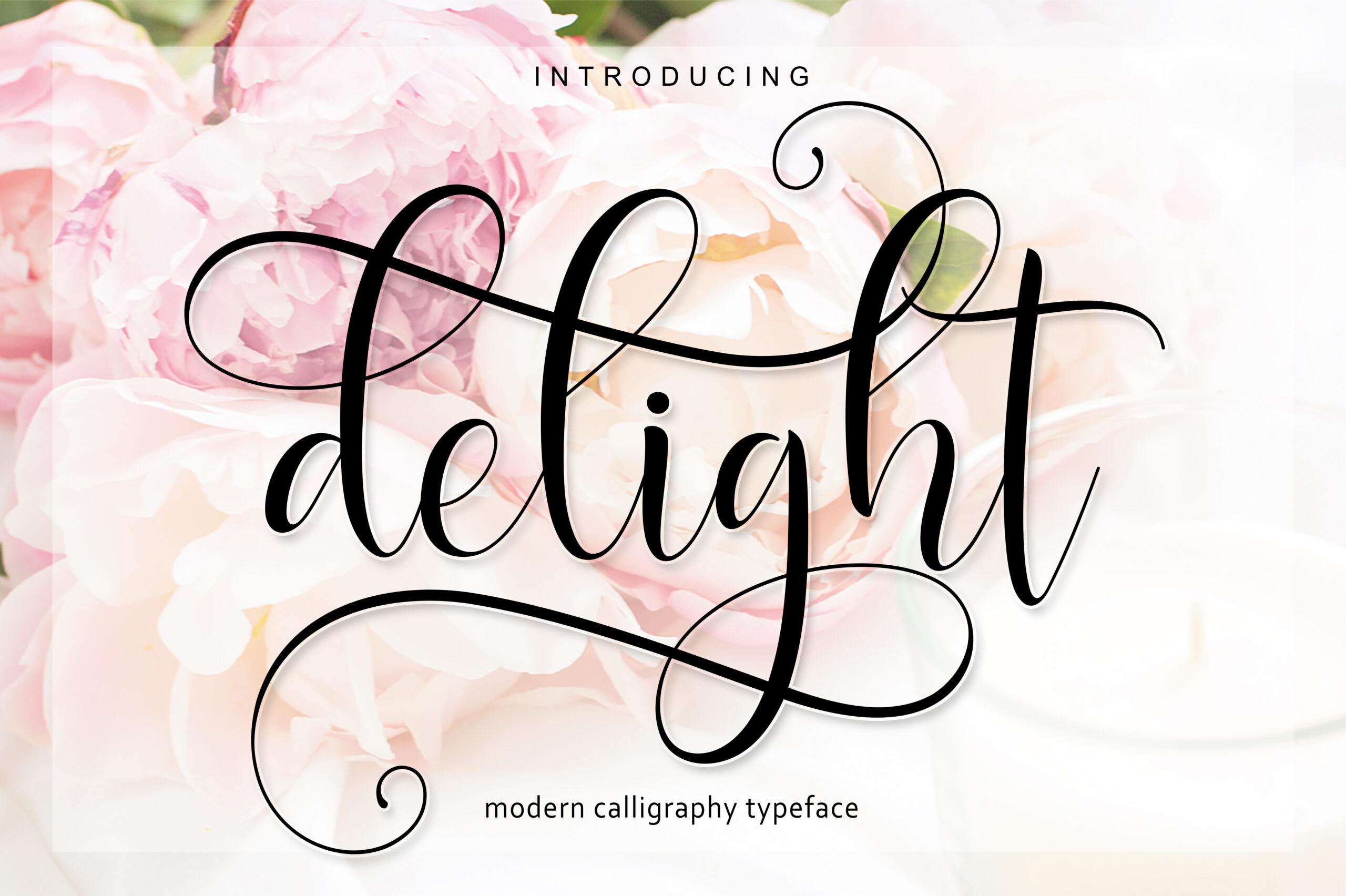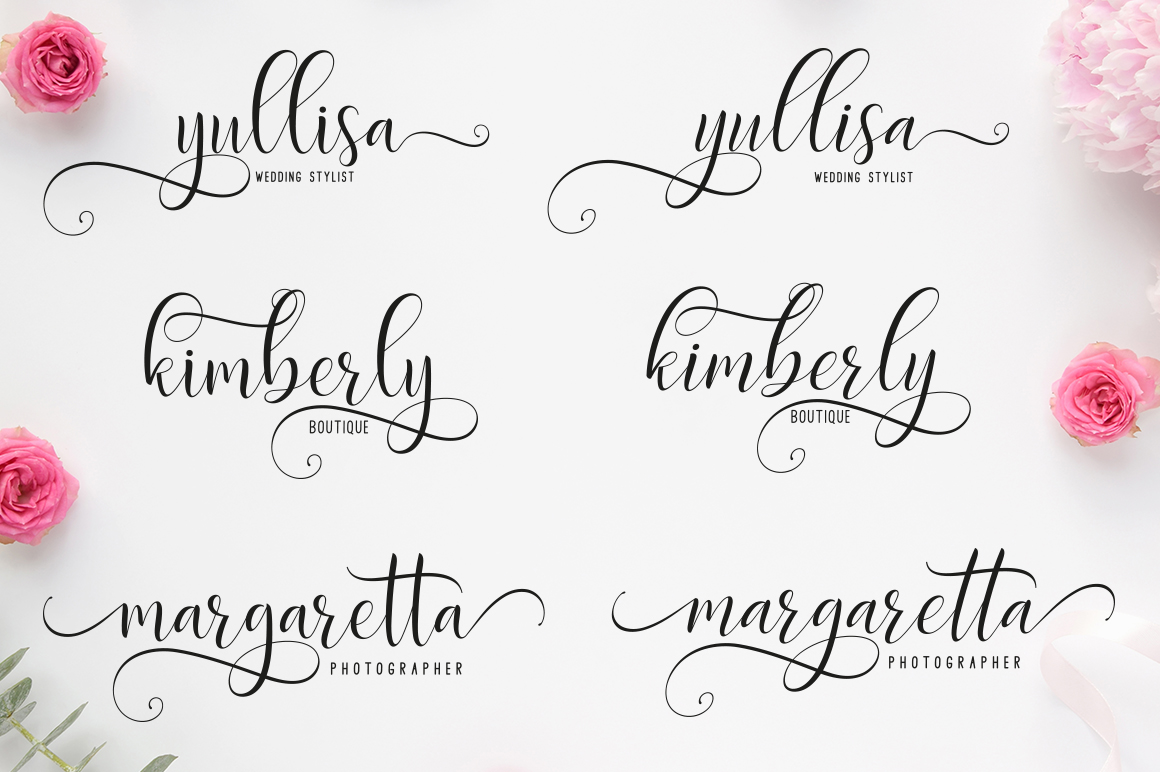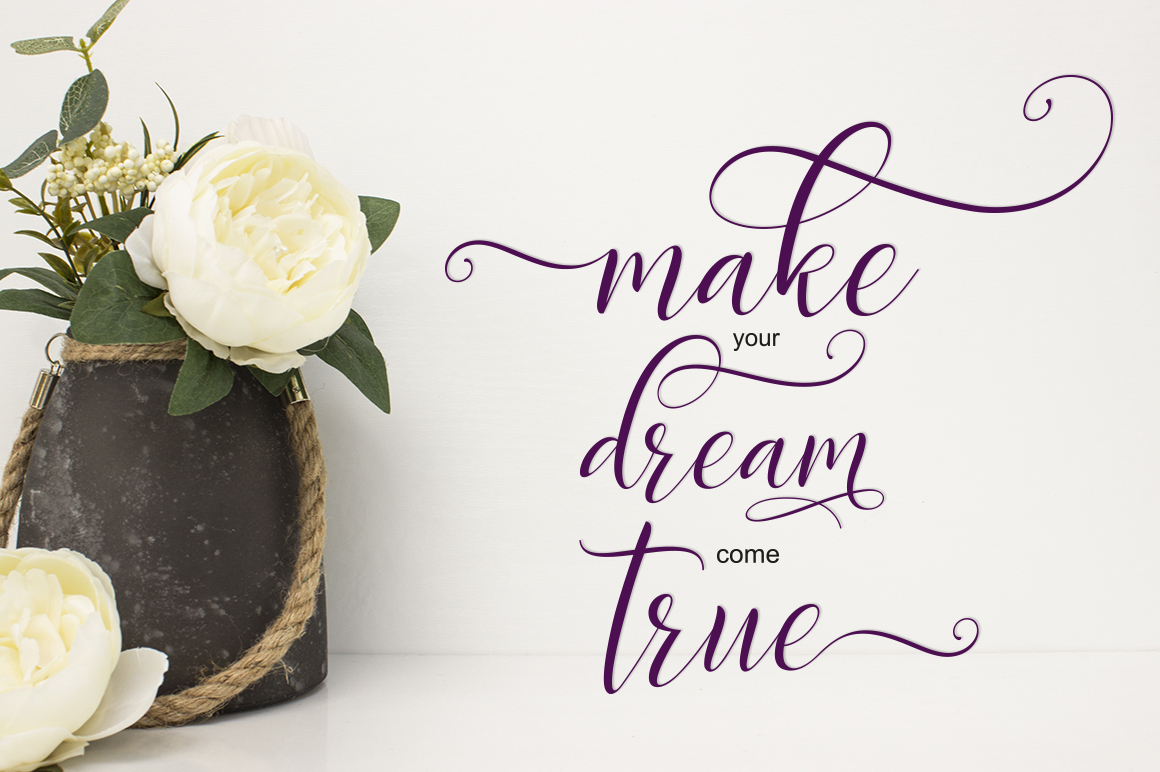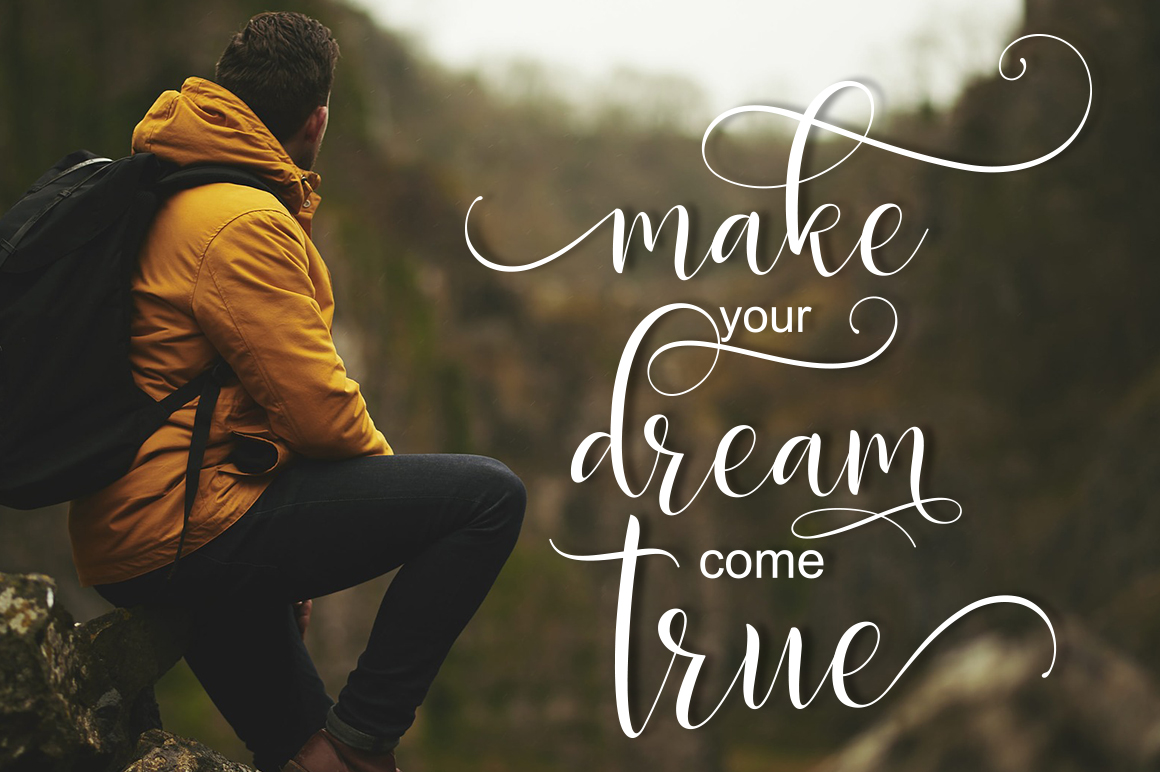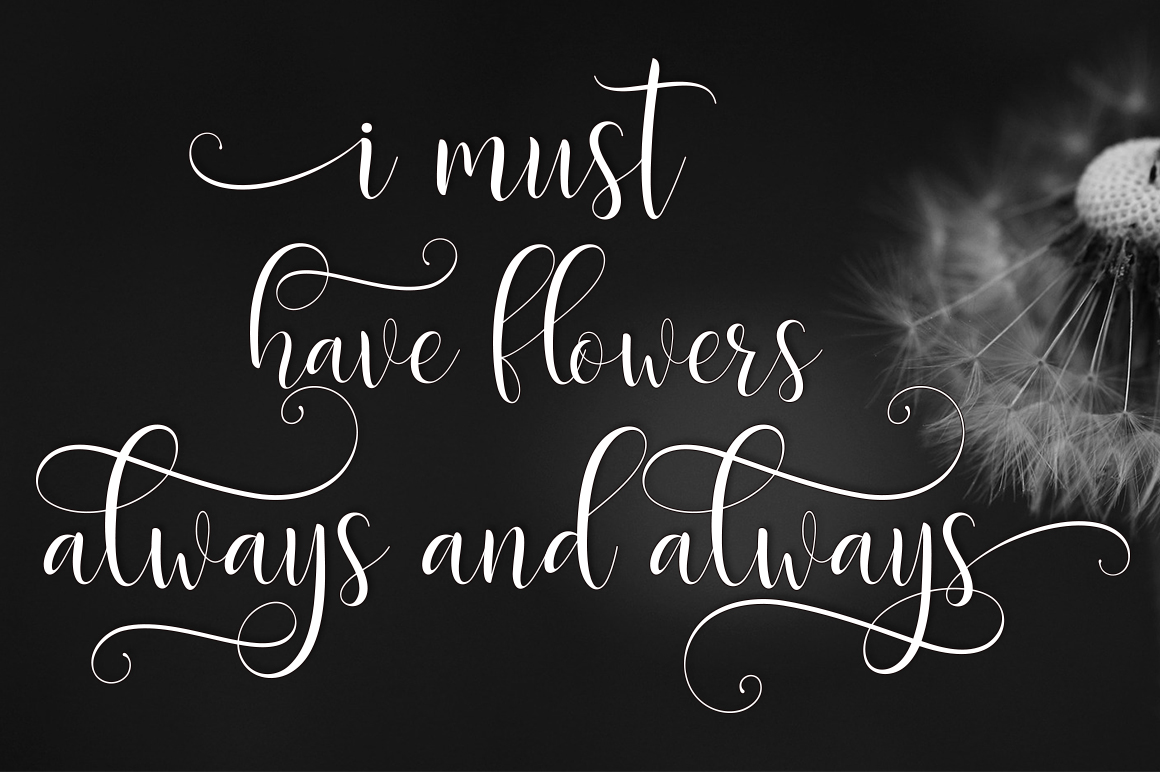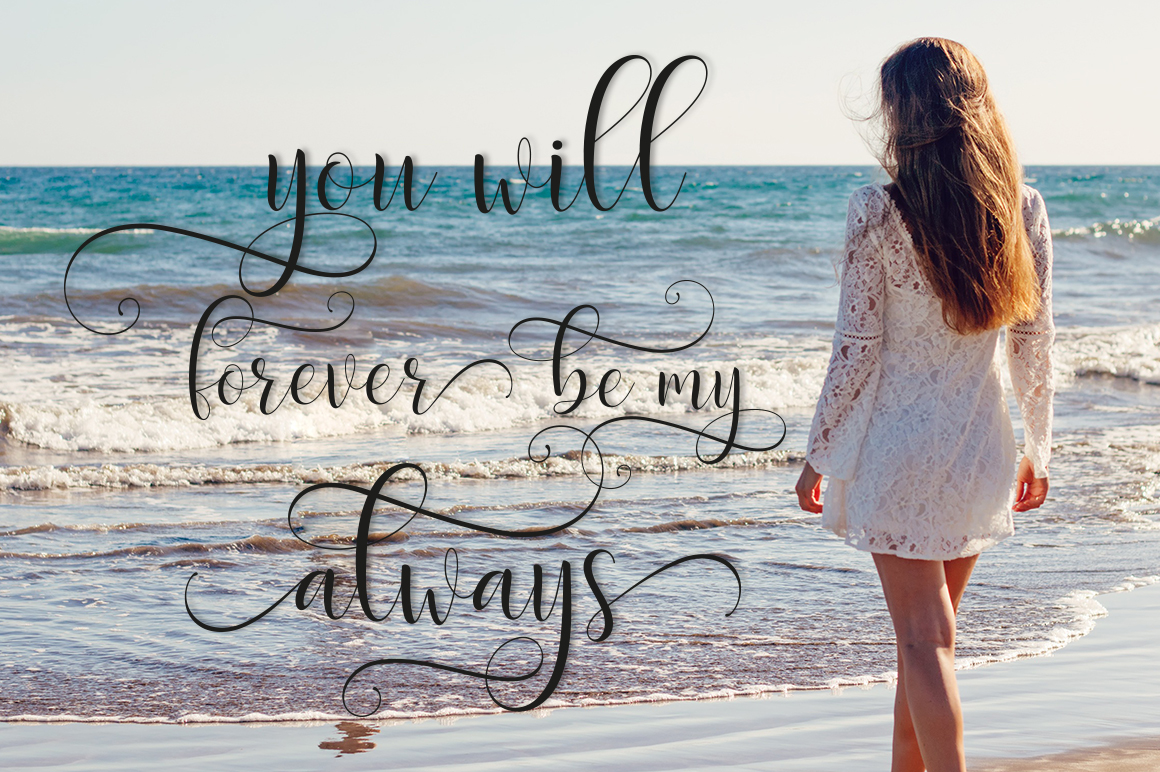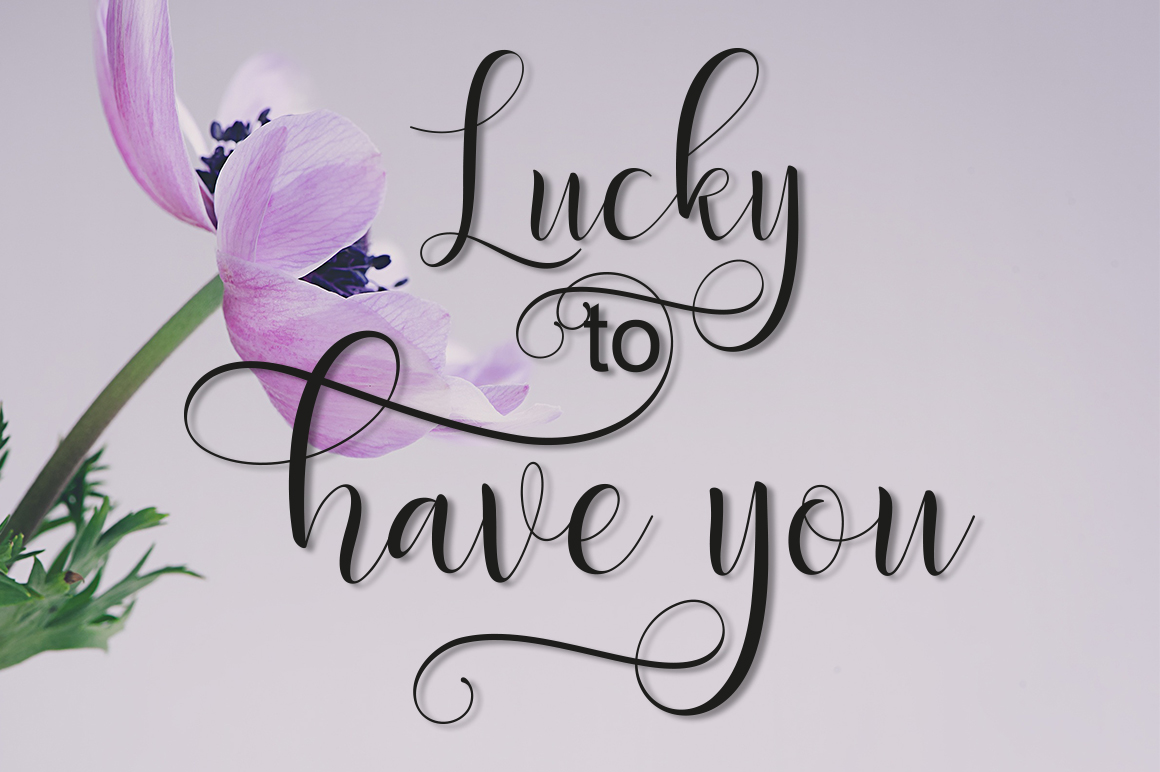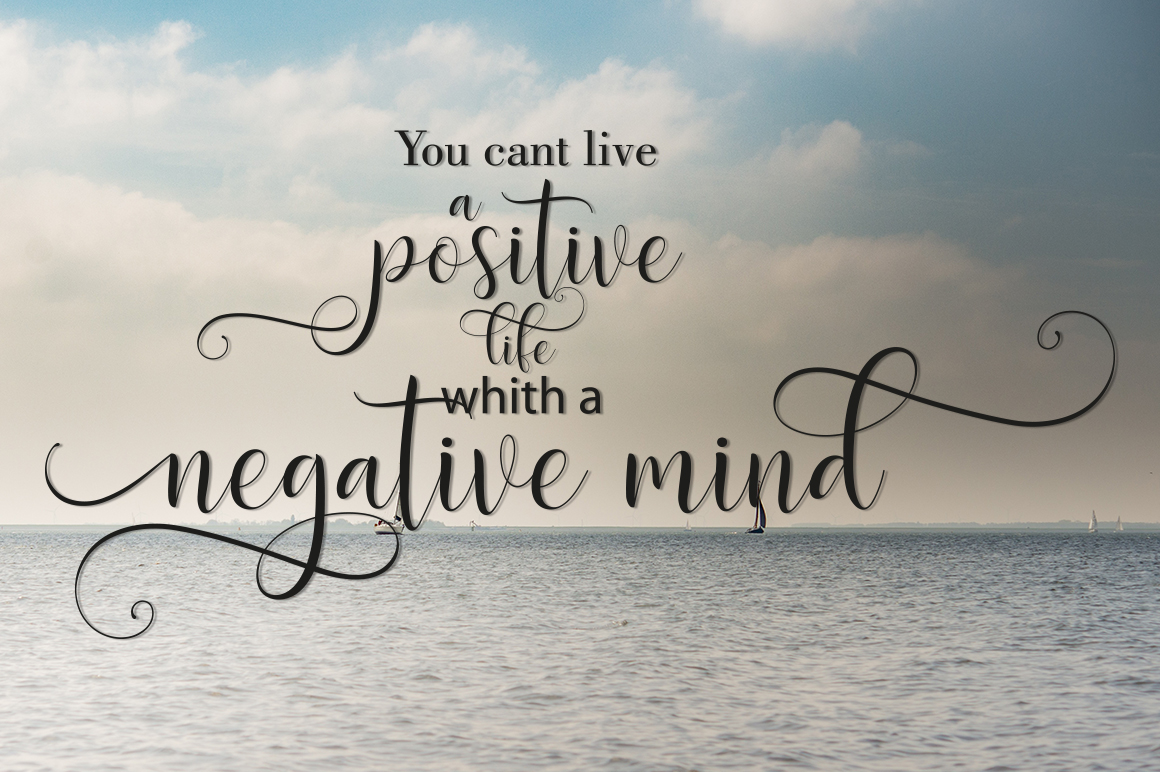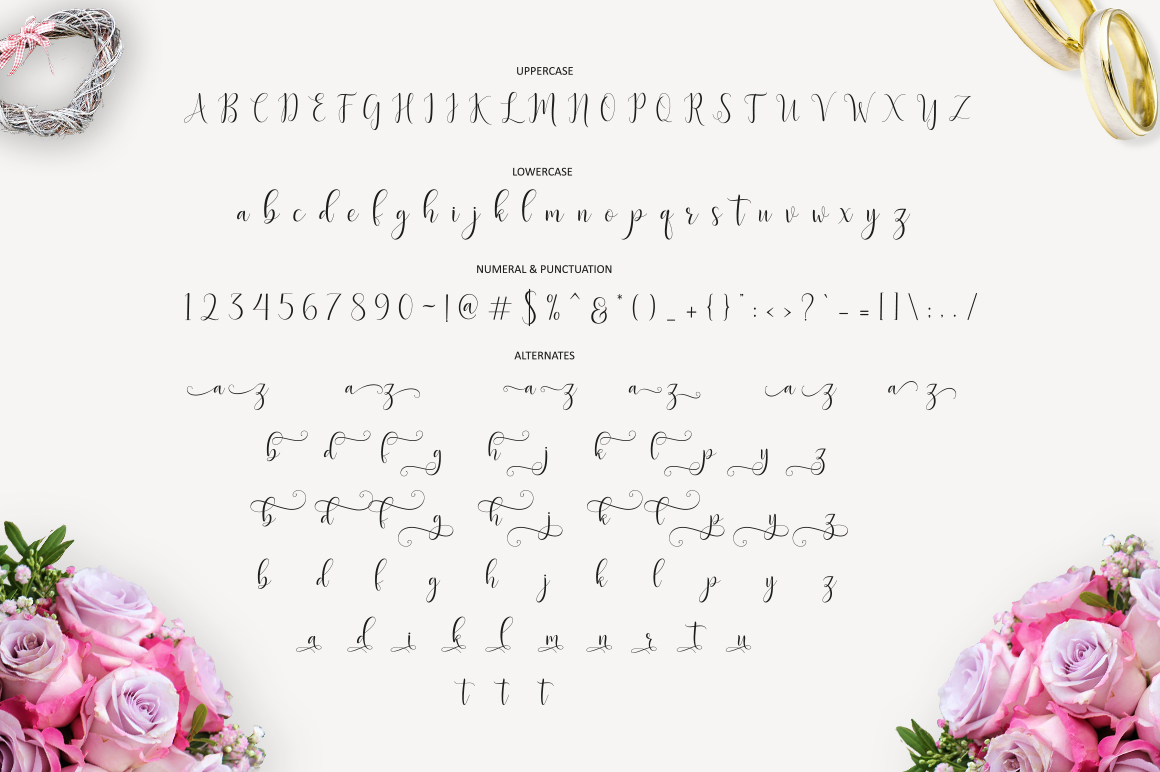
Delight Script Font
About Delight Script Font
What a namesake! The Delight Script is a delightful font family that is well suited to a large range of creative projects given its elegance, flourish, and legibility. This font also comes in a sans serif style so you can make fully realized designs with complementary typefaces!